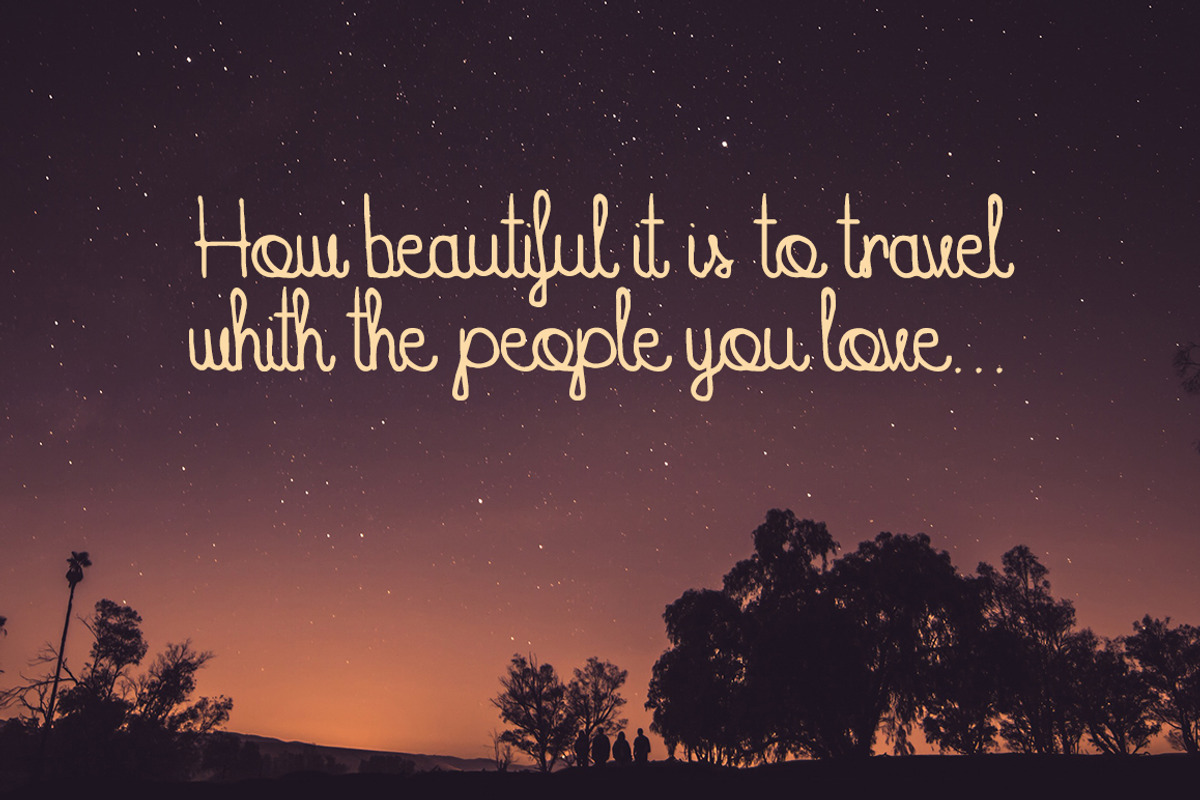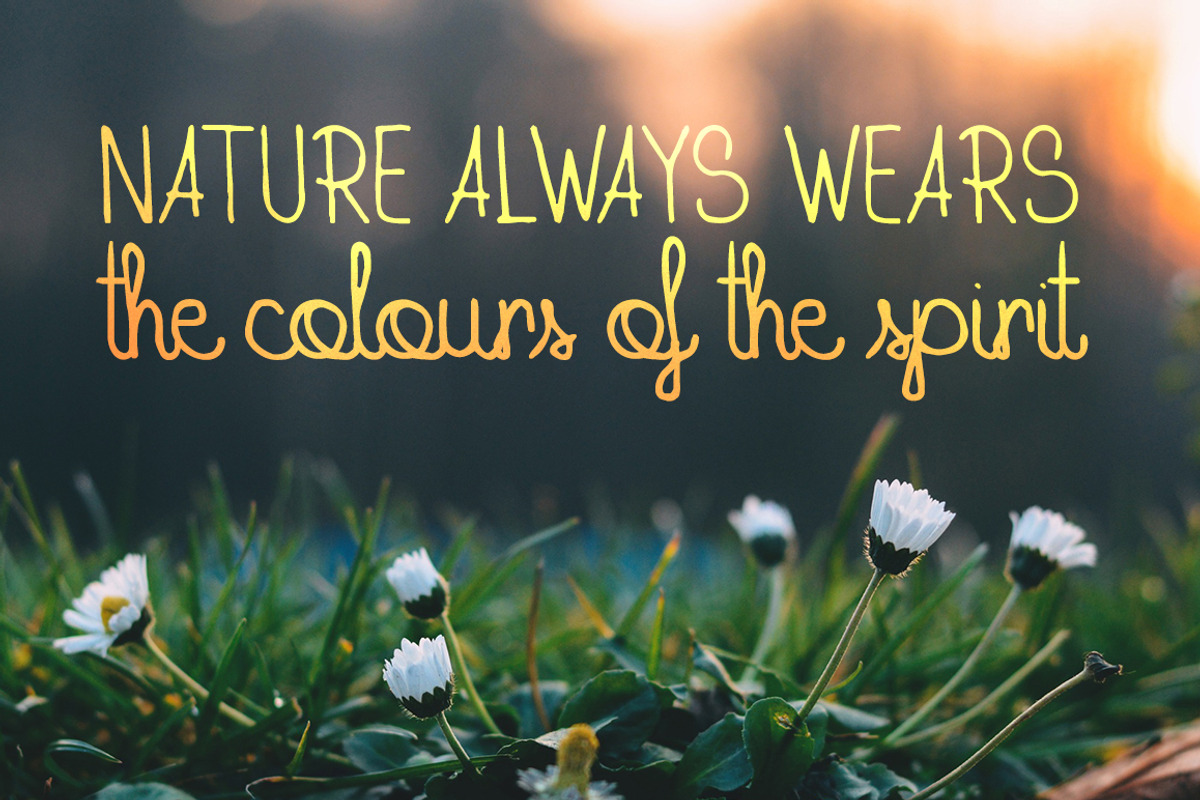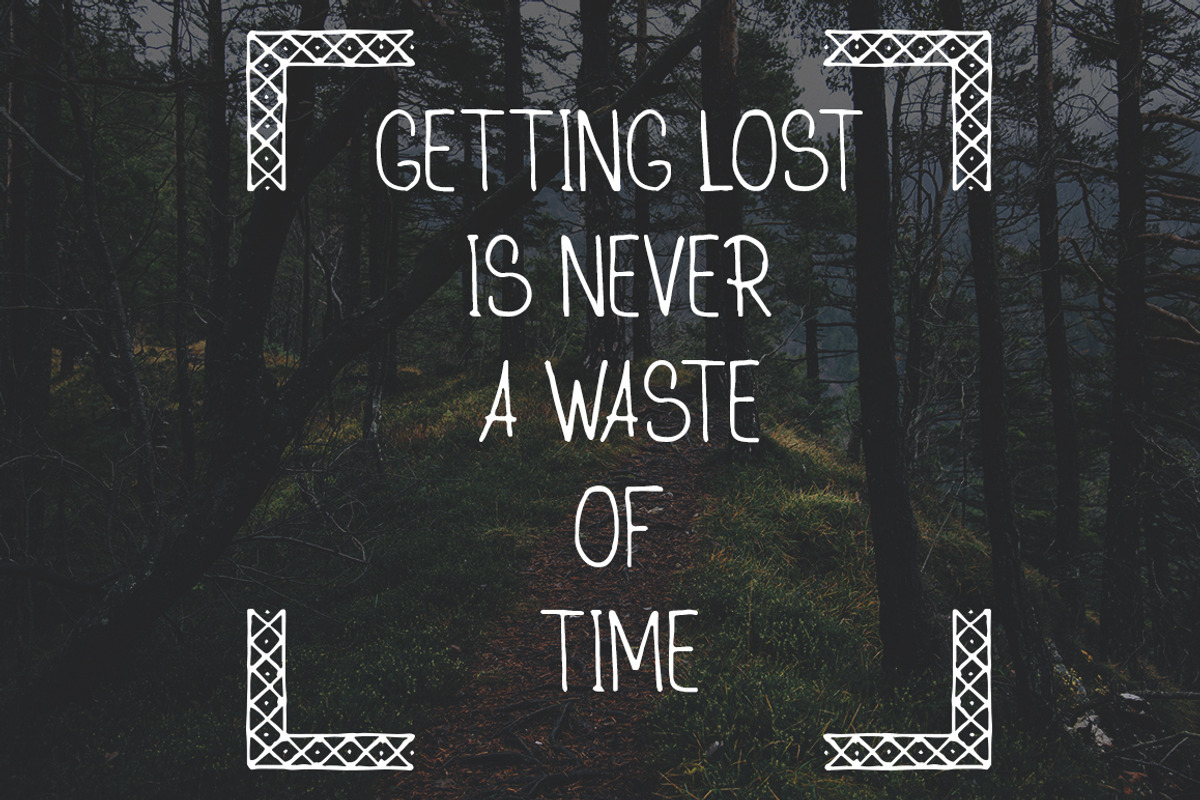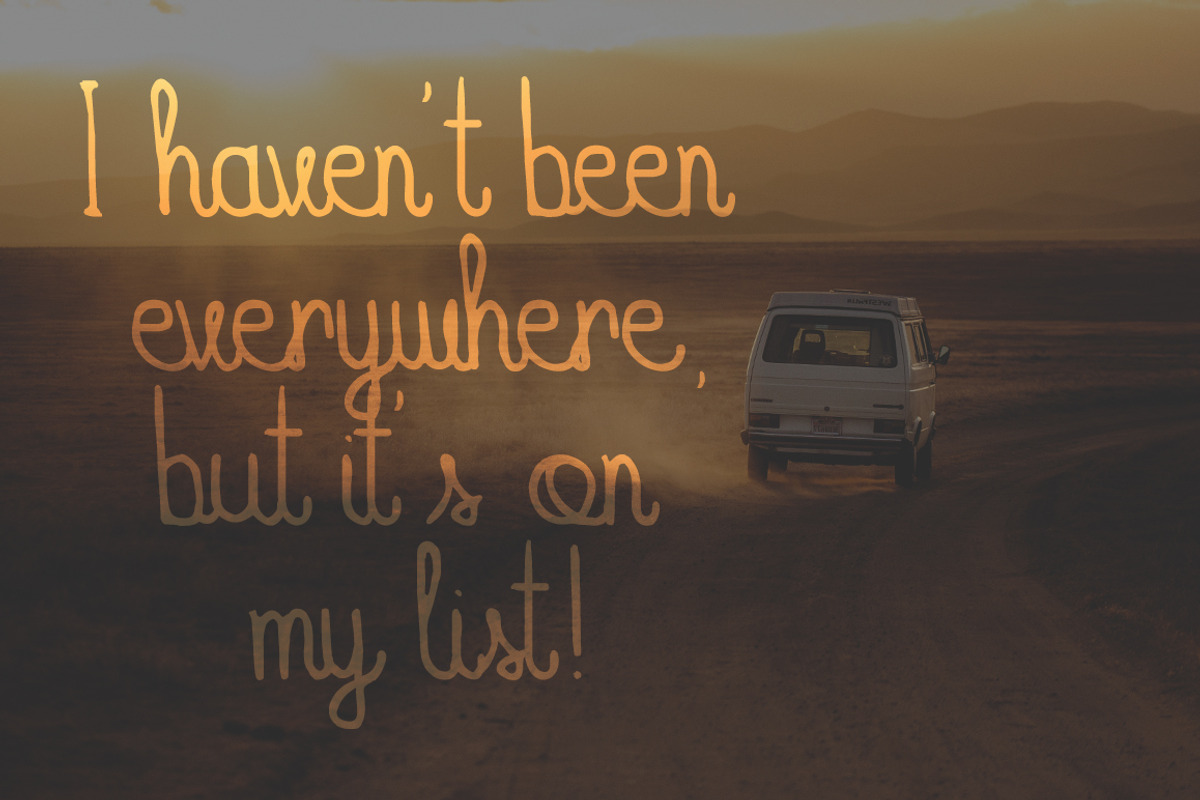
Traveler Font + BONUS pack
Traveler Font + BONUS pack by VectorBurn is a font selected for branding, posters, packaging, typography.
- It's raw and imperfect style really gives that hand-made feel to it, so you can personalize any design you can think of, from complete ident
- Containing both upper and lowercase letters and most of the basic special characters.
- Traveler Regular
Why Traveler Font + BONUS pack is worth a look
Traveler Font + BONUS pack by VectorBurn fits naturally into Branding, posters, packaging, typography.